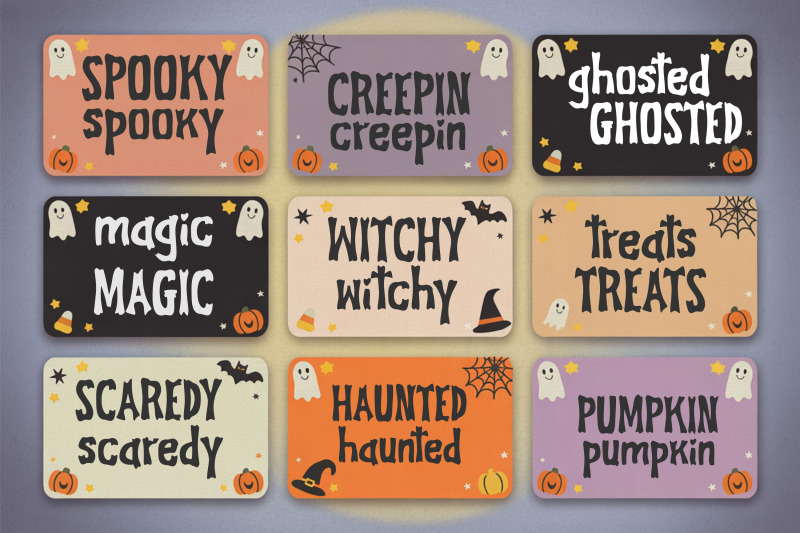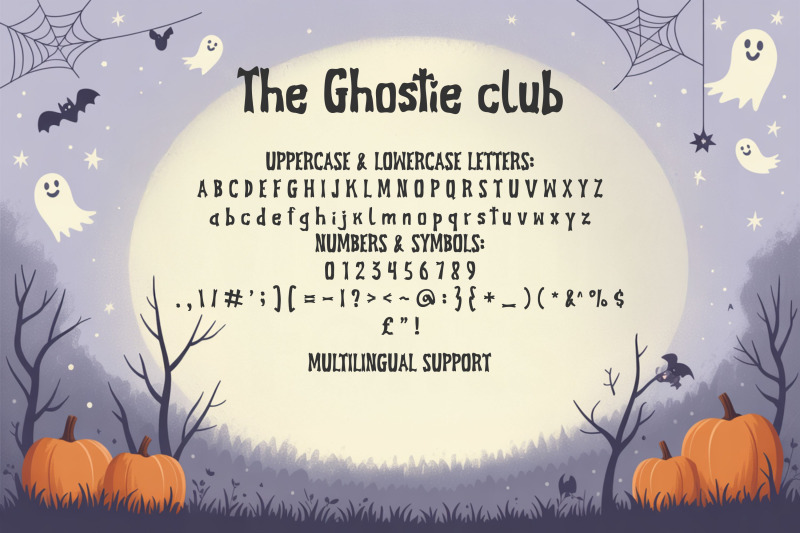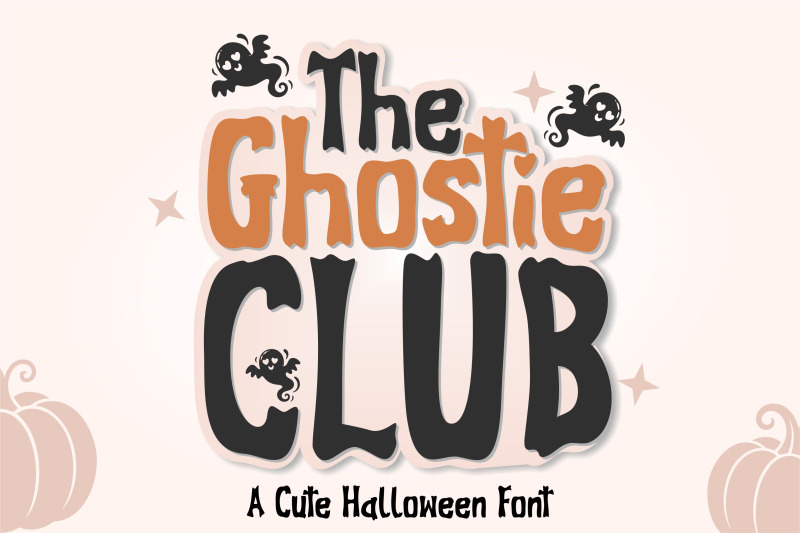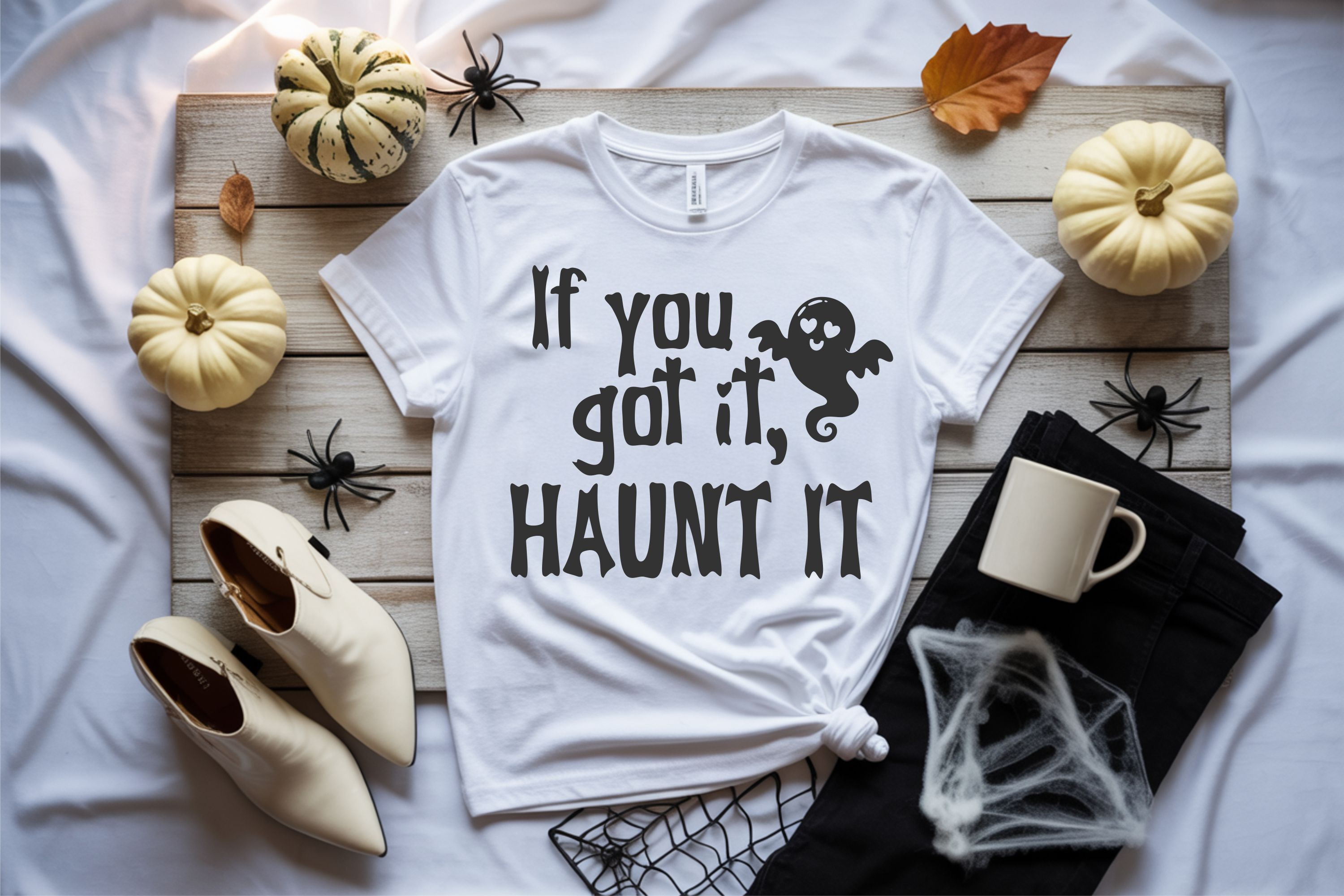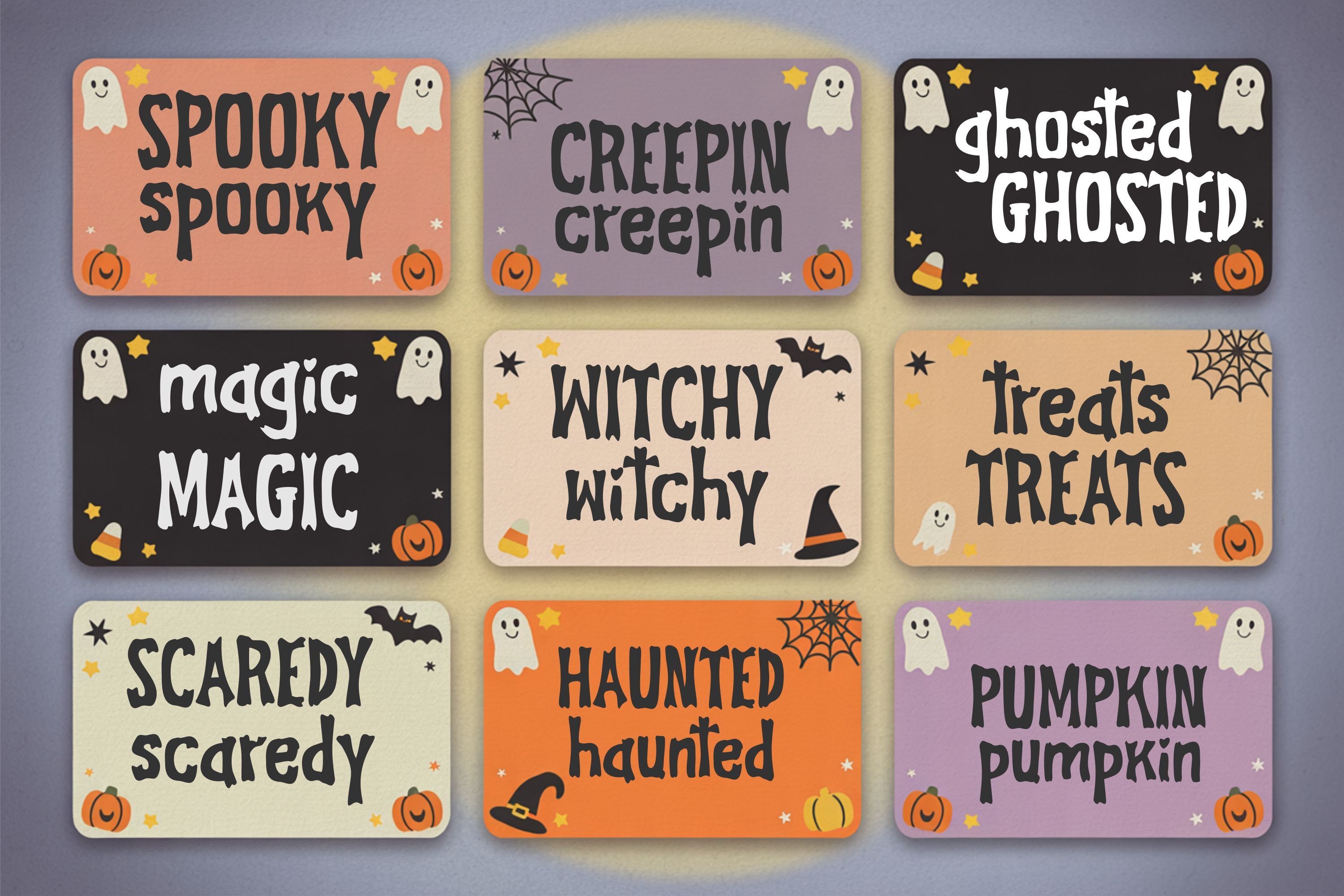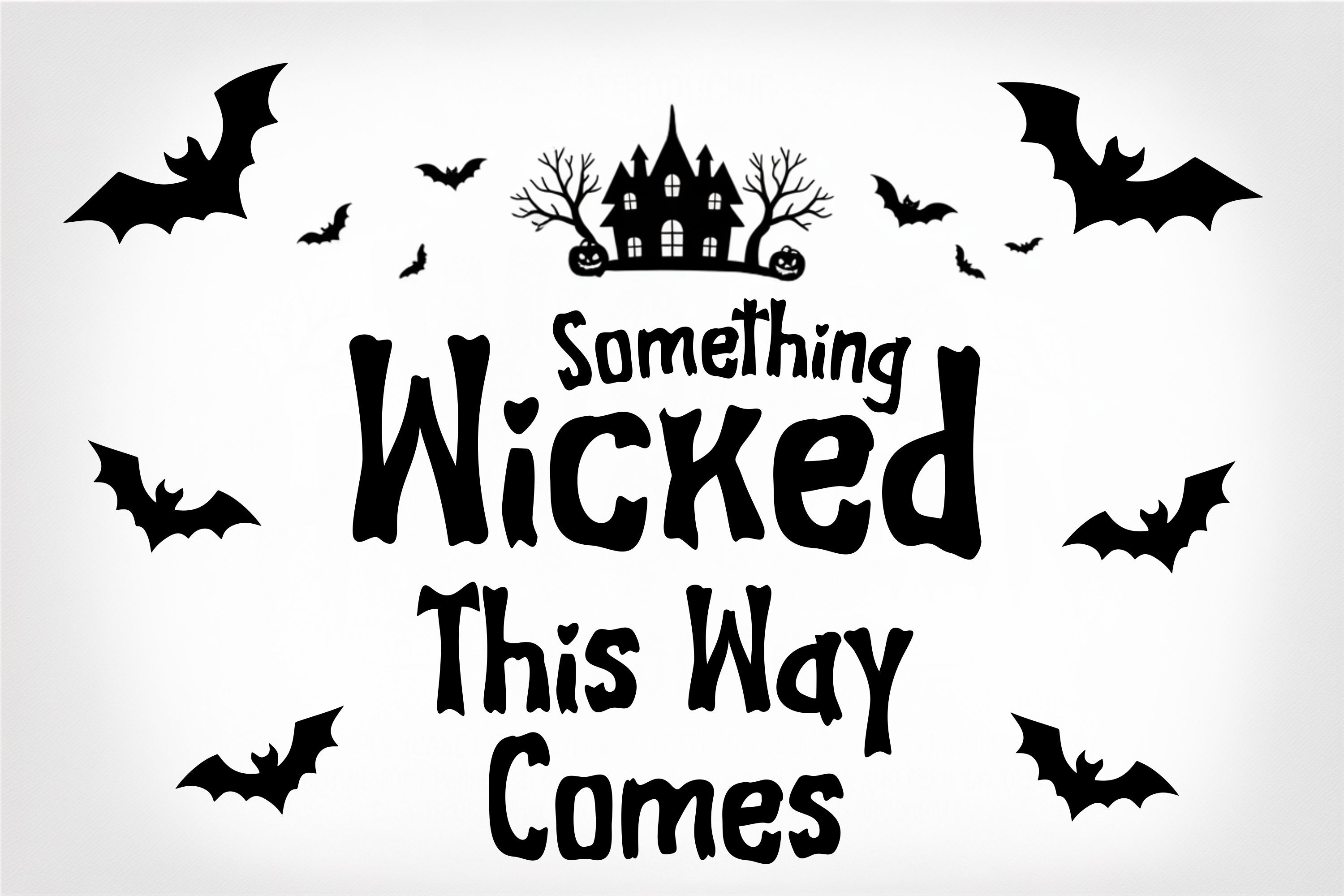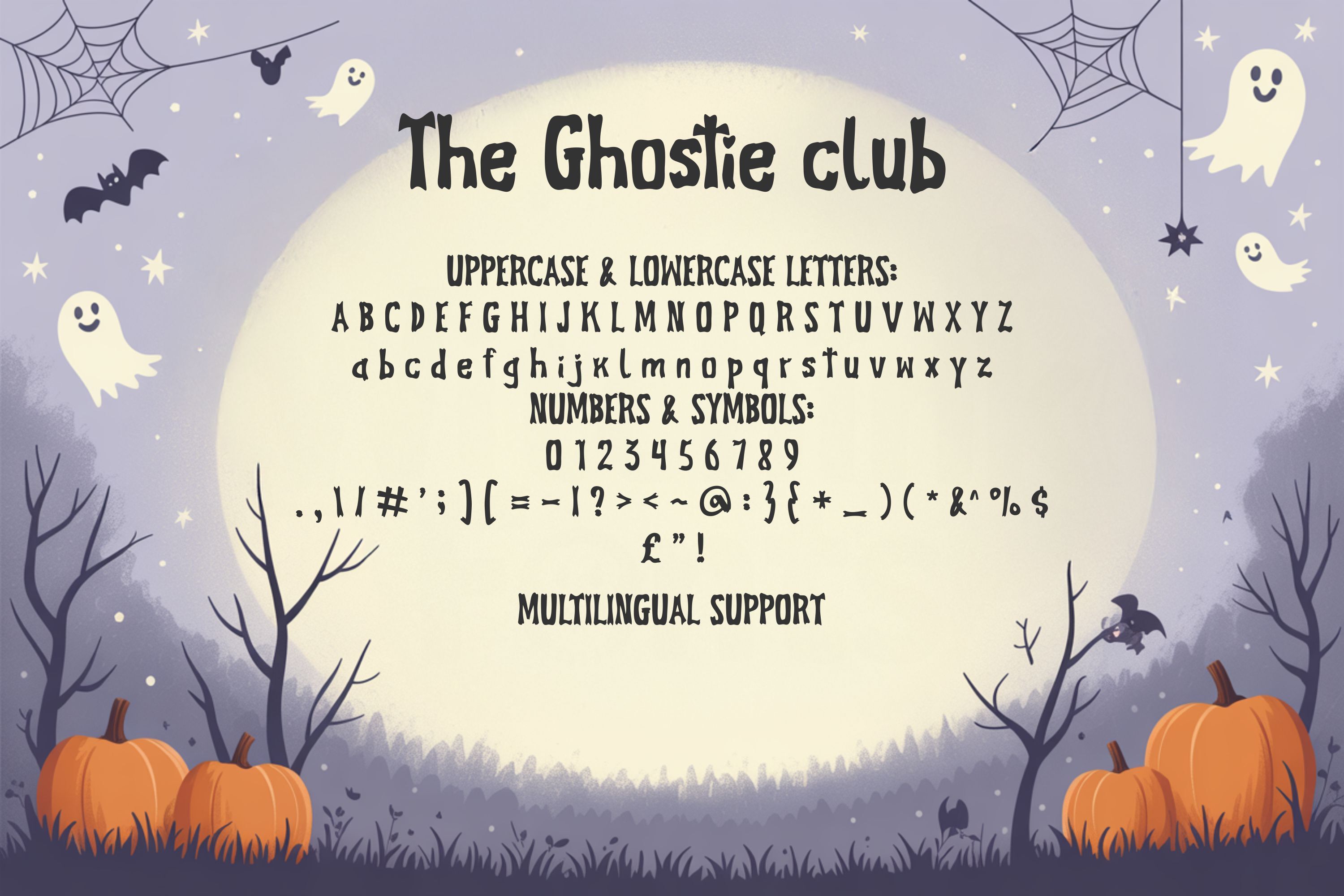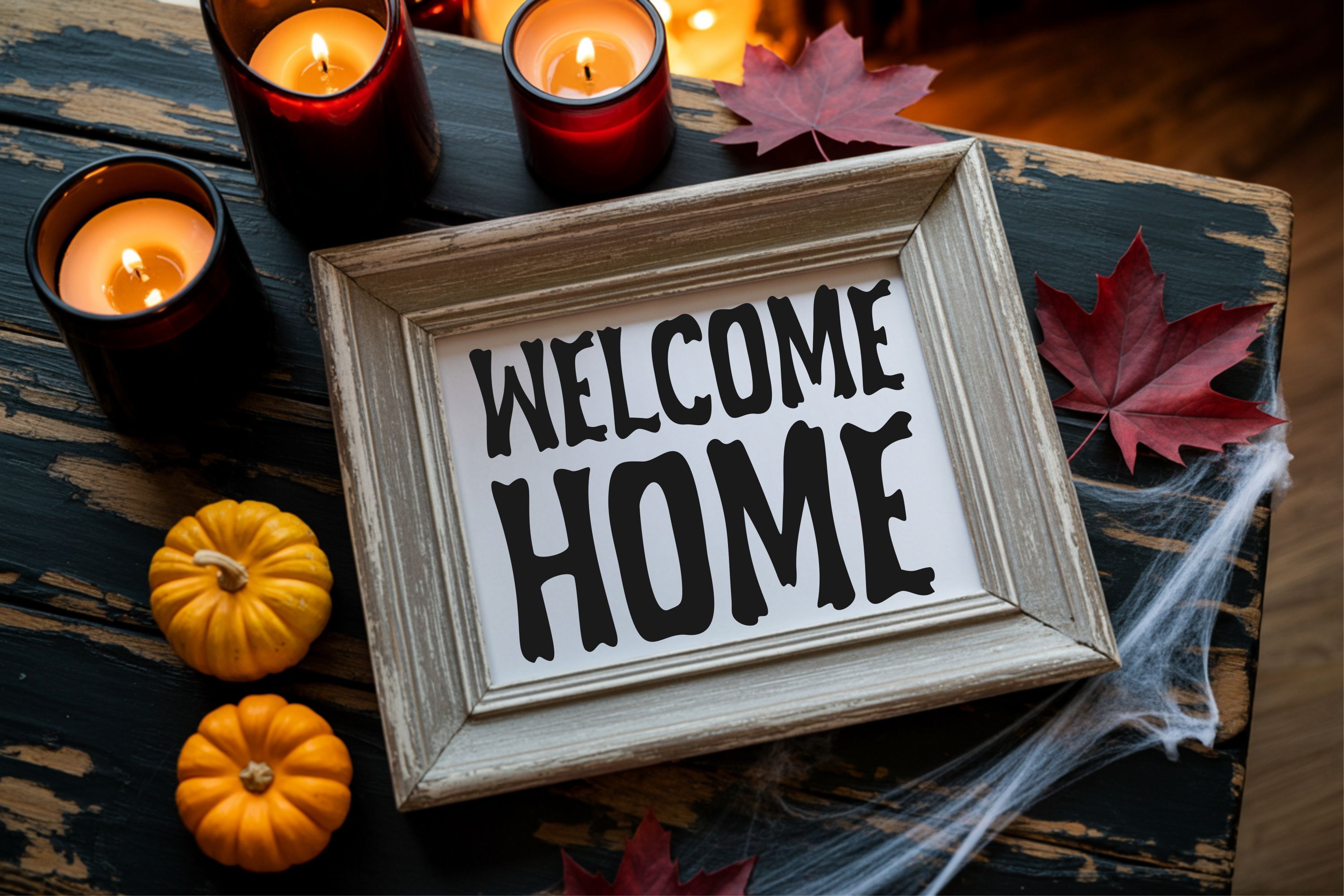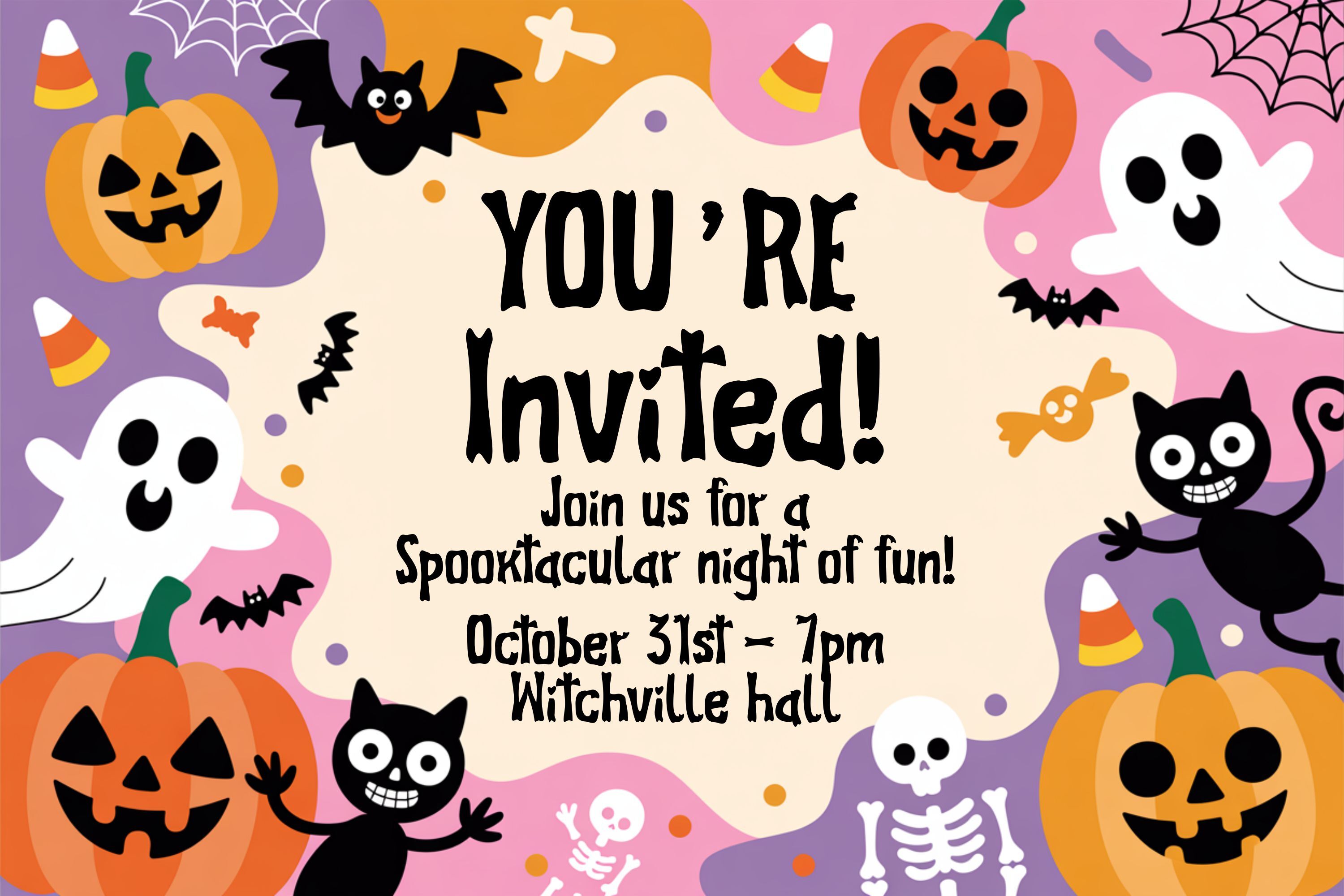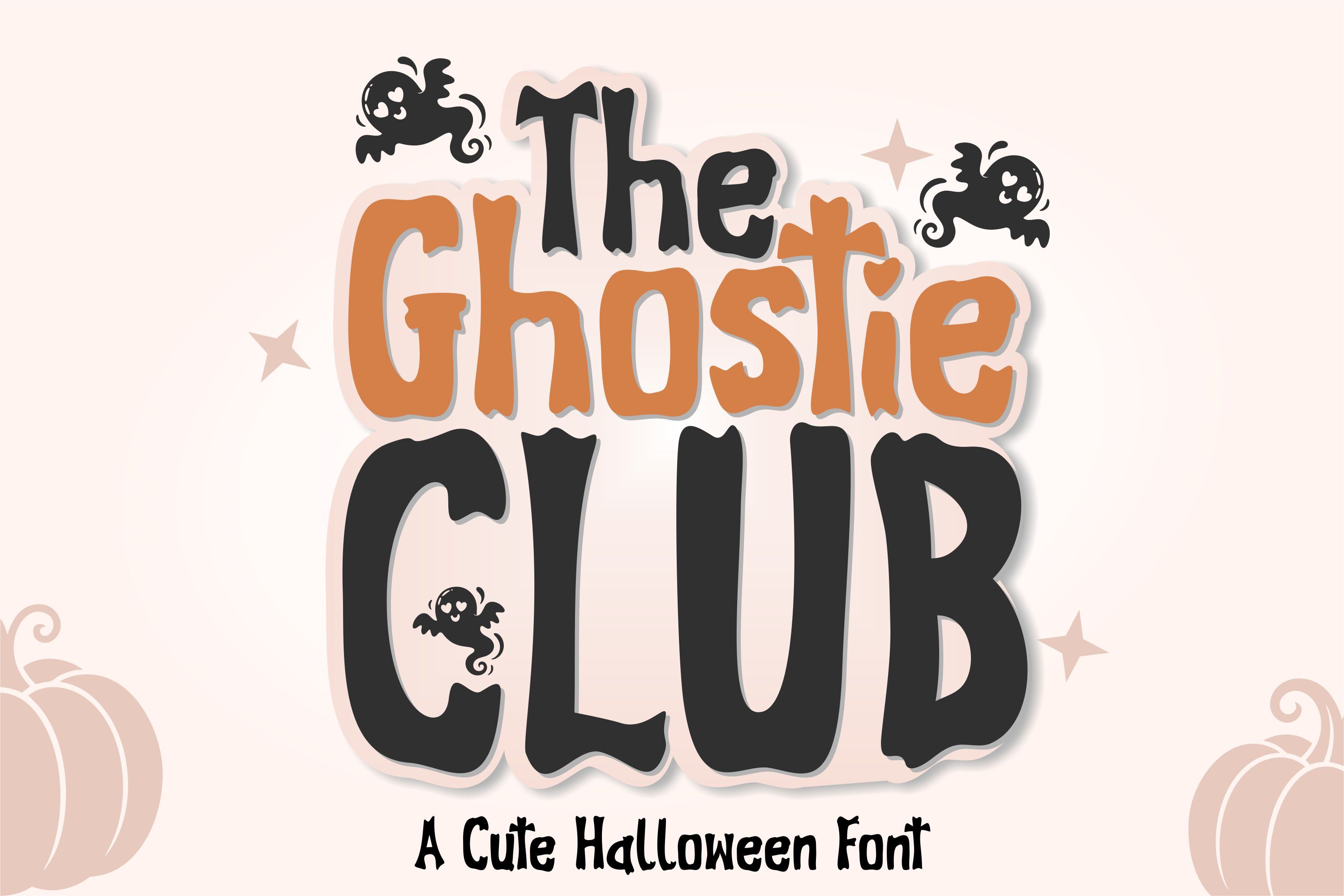
The Ghostie Club is a playful and heartwarming Halloween font that adds spooky sweetness to every design. It doesn’t haunt—it hugs! With bouncy, fun letters, heart-shaped surprises, and adorable ghost accents, this font is perfect for Halloween crafts that lean more cute than creepy. Whether you're making kids’ party invitations, candy bag tags, ghost-themed apparel, or playful printables, The Ghostie Club is your go-to font for charm and creativity.
Crafted for crafters, designers, and DIY lovers, this font works beautifully in Cricut, Silhouette, Canva, and other popular design software. It includes uppercase and lowercase letters, numbers, symbols, and full multilingual support—everything you need for projects with international flair.
From pastel pumpkins to haunted houses, The Ghostie Club is a font made for cozy scares and crafty smiles. Use it for Halloween signs, farmhouse decor, teacher gifts, scrapbooking, greeting cards, classroom materials, and more.